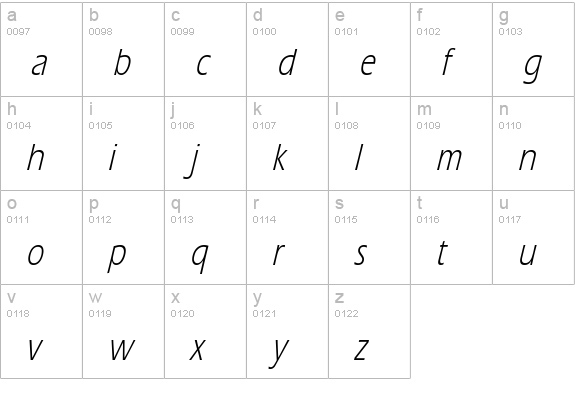
Eric Thin Italic is a delicate, low-contrast, italic variant in the Eric typeface family \xE2\x80\x94 well suited to fashion editorial, minimal branding, and high-contrast display.
Introducing Eric Thin Italic font, a sleek and modern typeface that is perfect for adding a touch of sophistication to your projects. This font features delicate, elegant letterforms with a subtle italic twist that exudes a sense of grace and style. Eric Thin Italic font is ideal for a wide range of design applications, from branding and editorial design to web graphics and social media posts. Its thin weight and italic styling create a refined and sophisticated look that will elevate any project. Best of all, Eric Thin Italic font is available for free download at FontsMarket.com. This means you can easily access this stylish font and use it in your designs without any cost. Don't miss out on the opportunity to enhance your projects with the timeless elegance of Eric Thin Italic font. Download it today and start creating stunning designs with ease.